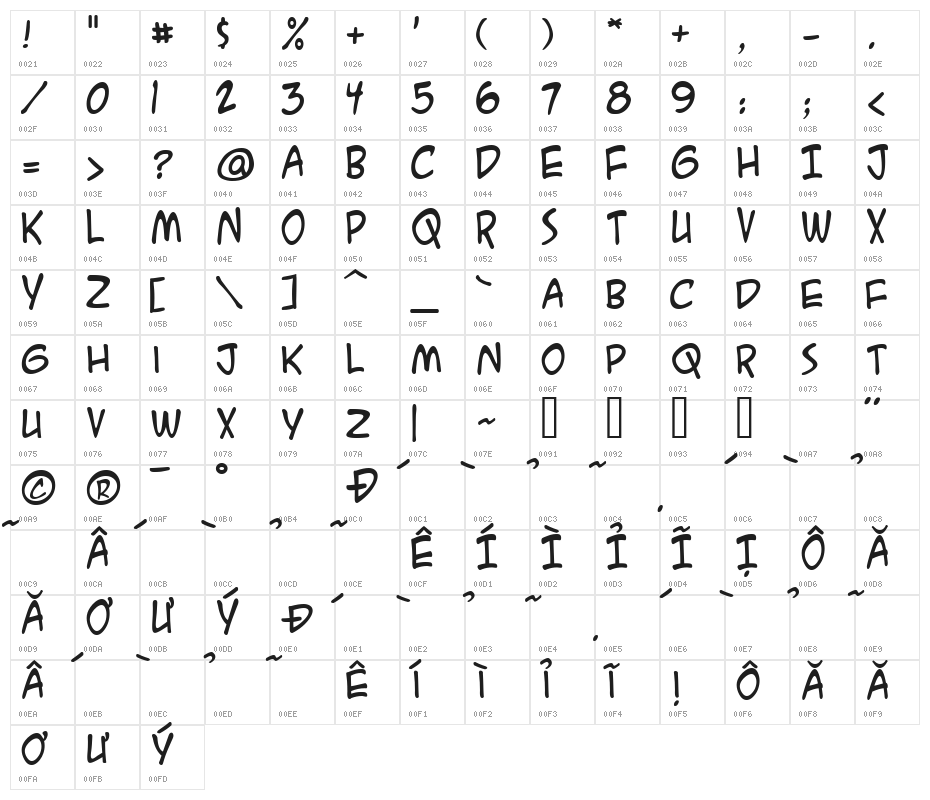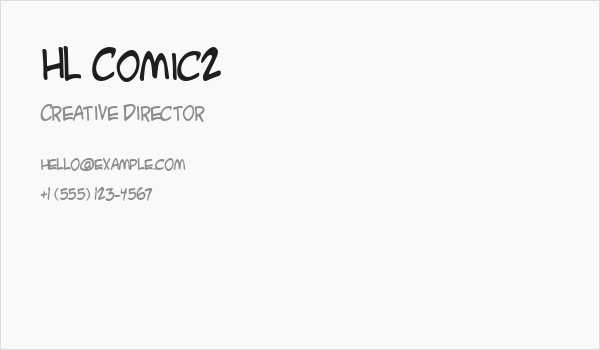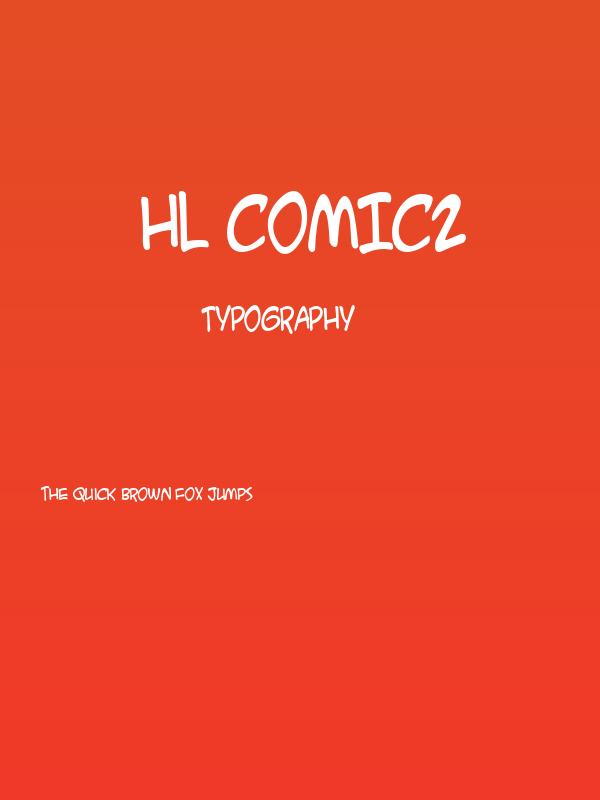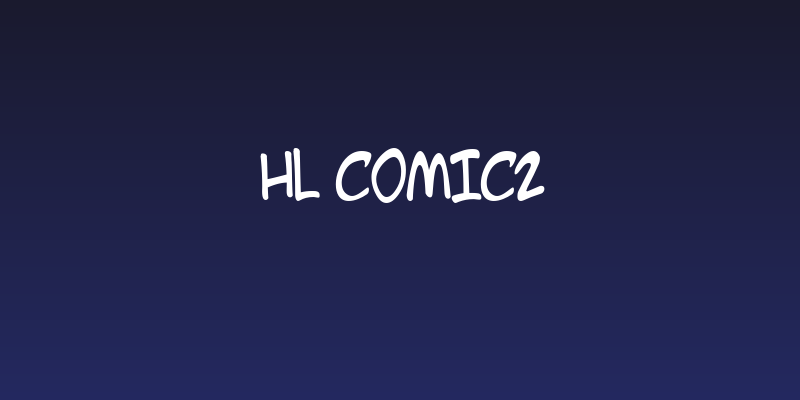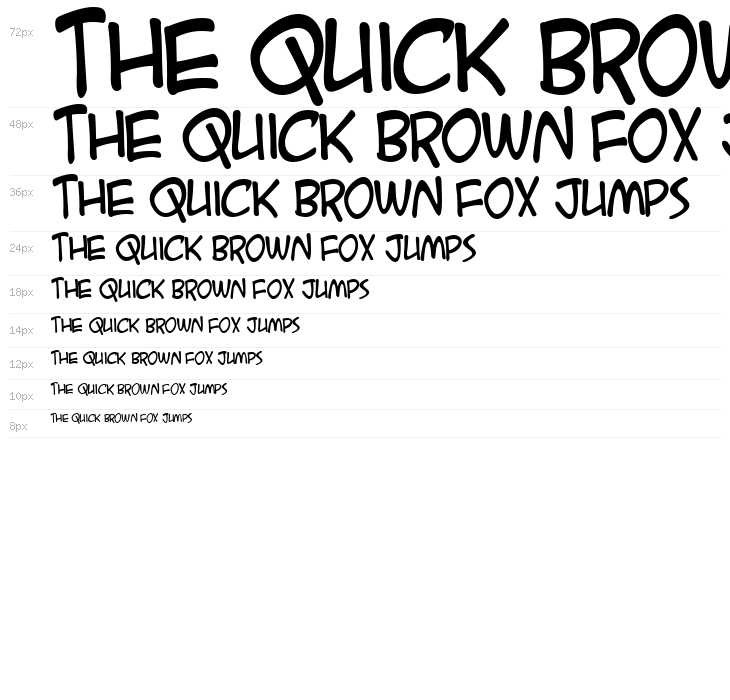
HL Comic2 Font
| Gesamtstil | Playful |
| Anwendungsfall | Headlines, Logos, Informal Text |
| Vorgeschlagene Projekte | Ideal for comic books, children's books, playful branding, and informal invitations. |